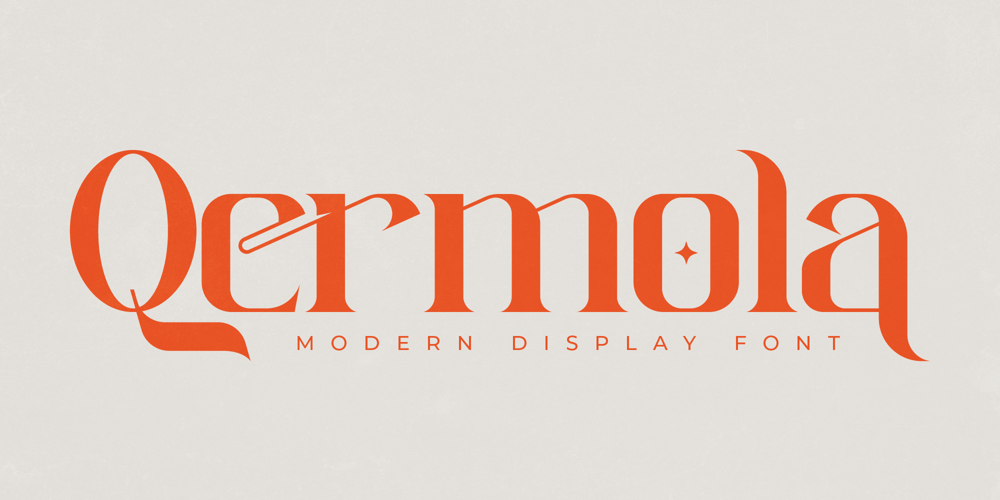
Qermola Font Family was designed by Heru Utama Putra and published by Letterena Studios. Qermola contains 2 styles and family package options. Qermola is a stylish and delicate serif font.It is perfect for an elegant & luxurious logo, book or movie title design, fashion brand, magazine, clothes, lettering, quotes, and so much more. This font is PUA encoded which means you can access all of the glyphs and swashes with ease!